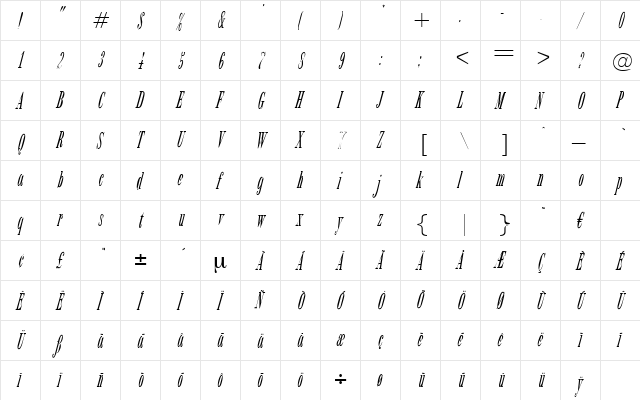
CutterItalic Regular
Design Context for CutterItalic Typeface
CutterItalic is a composed and adaptable typeface that performs quietly and consistently across a wide range of design contexts. The slanted form adds forward momentum and visual energy.
Pro Tip: Try CutterItalic for annotation and caption copy alongside an upright companion — the contrast in angle creates a dynamic but ordered typographic system.